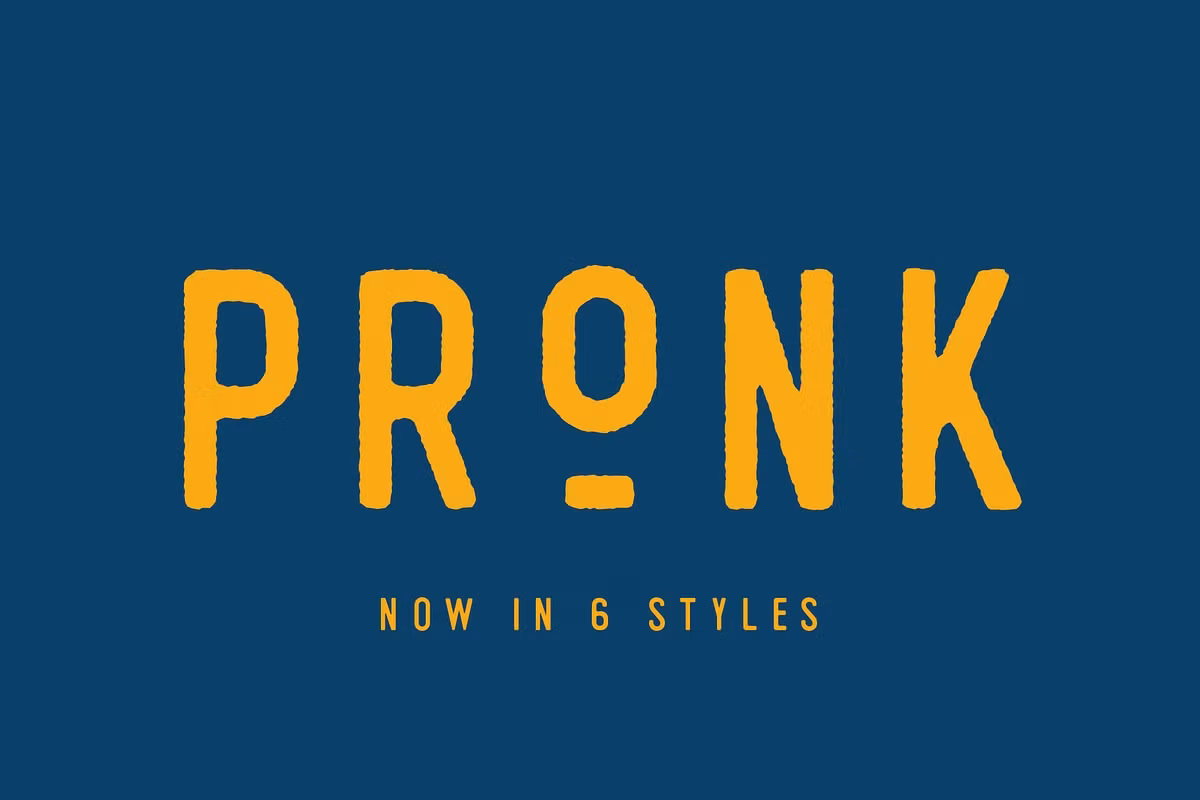
Pronk - retro vintage display font Free Download
Pronk - Retro Vintage Display Font Free Download
Please note, to use this font for commercial purposes, you must purchase the full version. Pronk is a bold and eye-catching retro vintage display font that combines nostalgic charm with a modern twist. Perfect for logos, branding, posters, and creative projects that need a touch of old-school flair, this font brings a unique, vintage feel to your work. Whether you're designing for a retro-inspired brand, a classic event, or a creative marketing campaign, Pronk adds a stylish and dynamic element to your designs. Test it out and enjoy free download access for personal use. Experience the vintage cool of Pronk - Retro Vintage Display Font Free Download before purchasing the commercial license. Add a classic, retro touch to your designs with Pronk.